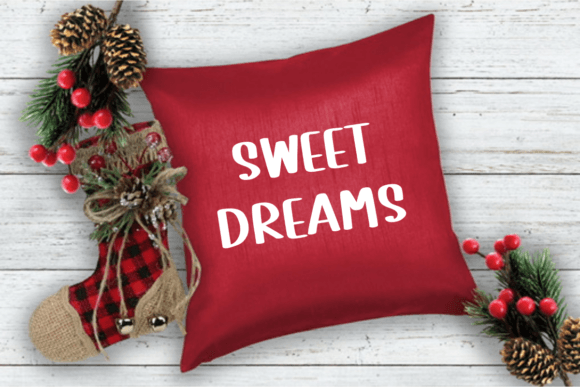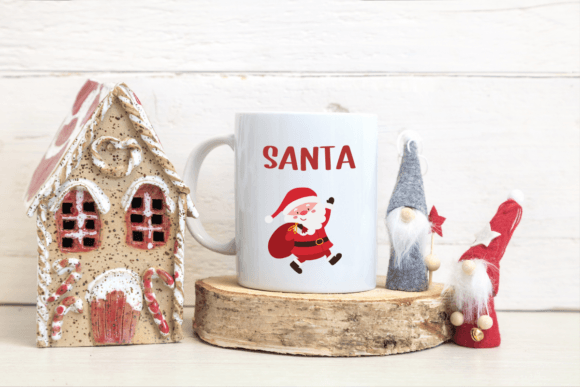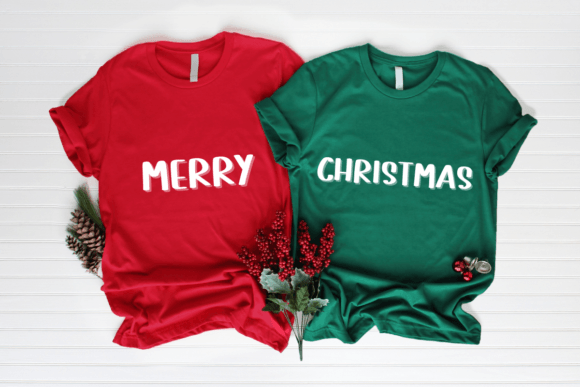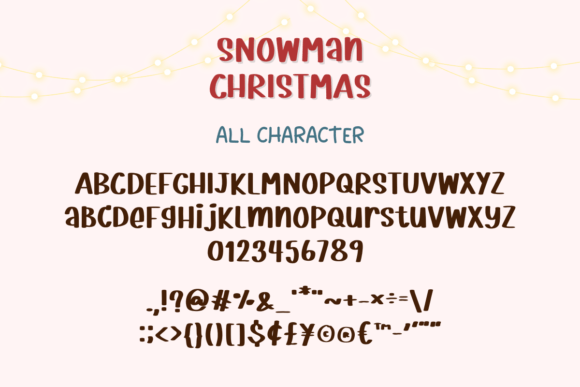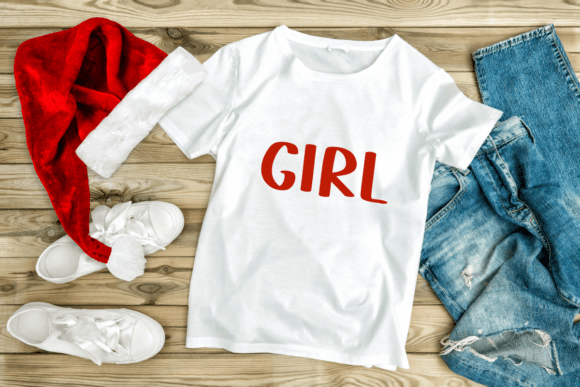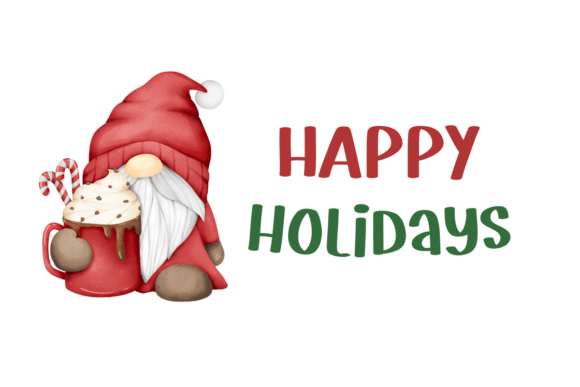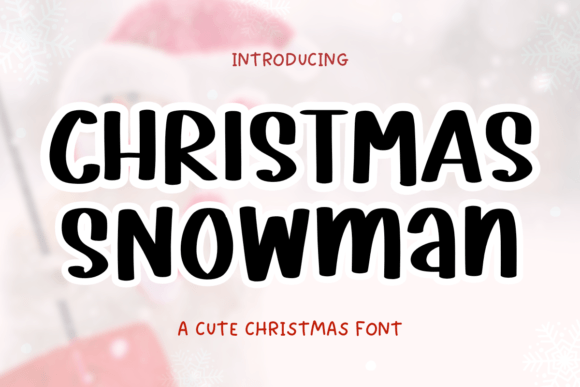
Christmas Snowman Font: A Cute and Friendly Handwritten Font for Your Holiday Projects
Are you looking for a fun and playful font to add a touch of whimsy to your holiday projects? Look no further than the Christmas Snowman Font! This adorable handwritten font is perfect for kid and school projects, and can also be used for a variety of other applications, including posters, t-shirts, invitations, quotes, badges, and more.
What Makes Christmas Snowman Font So Special?
Christmas Snowman Font is a unique and charming font that is sure to bring a smile to anyone’s face. Its cute and friendly design makes it perfect for projects that require a playful and approachable feel. Whether you’re creating materials for kids, or just want to add some holiday cheer to your designs, this font is sure to fit the bill.
Use Christmas Snowman Font for a Variety of Projects
Christmas Snowman Font is a versatile font that can be used for a wide range of projects, including:
- Kid and school projects: Use Christmas Snowman Font to create fun and engaging materials for kids, such as worksheets, activity sheets, and educational posters.
- Posters and flyers: Add a touch of holiday cheer to your posters and flyers with Christmas Snowman Font.
- T-shirts and apparel: Use Christmas Snowman Font to create fun and festive designs for t-shirts, hoodies, and other apparel.
- Invitations and greeting cards: Add a personal touch to your holiday invitations and greeting cards with Christmas Snowman Font.
- Quotes and social media graphics: Use Christmas Snowman Font to create inspiring and shareable quotes and social media graphics.
- Badges and stickers: Create fun and colorful badges and stickers with Christmas Snowman Font.
Why Designers and Crafters Love Christmas Snowman Font
Designers and crafters love Christmas Snowman Font for its unique combination of playfulness and versatility. Here are just a few reasons why:
- Easy to read: Christmas Snowman Font is clear and easy to read, making it perfect for use in a variety of contexts.
- Fun and playful: Christmas Snowman Font is the perfect way to add a touch of whimsy and fun to your designs.
Get Creative with Christmas Snowman Font
Whether you’re a designer, crafter, or simply someone who loves the holiday season, Christmas Snowman Font is the perfect way to add a touch of festive fun to your projects. So go ahead, get creative, and make this holiday season one to remember!